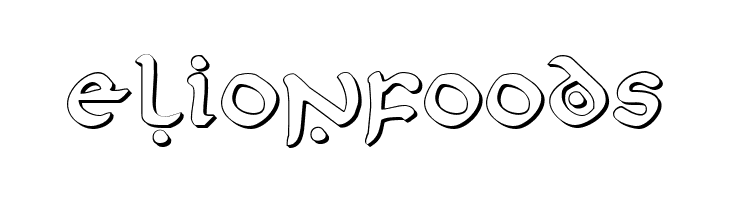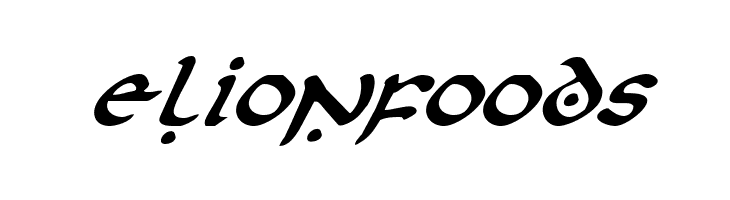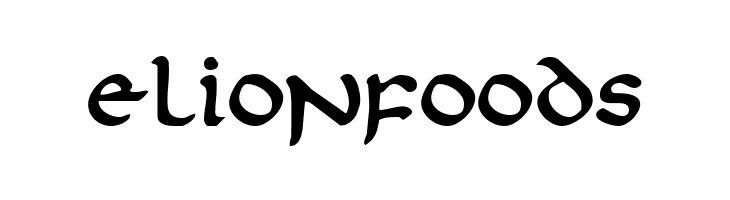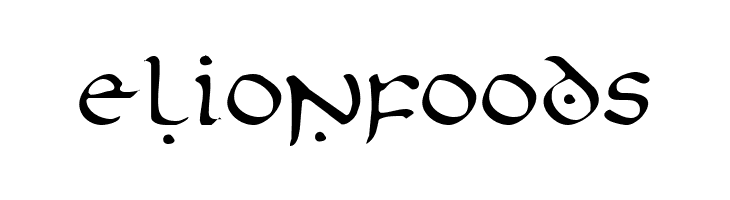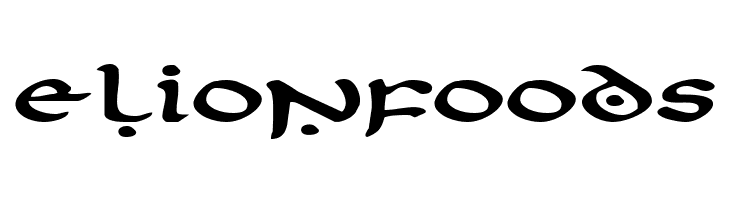
A decorative, calligraphic font with a medieval flair.
A bold, italicized font with a calligraphic and dynamic style.
An artistic, medieval-inspired font with decorative flourishes and modern elegance.
A whimsical, calligraphic font with dynamic curves and varying stroke widths.
A playful, bold font with a unique shadow effect for a three-dimensional look.